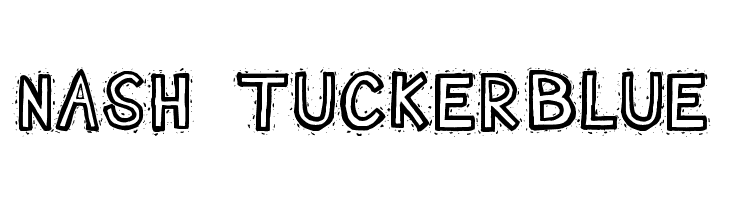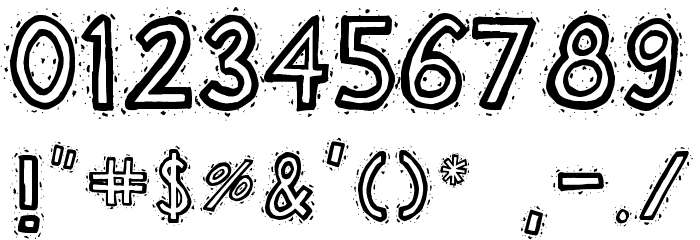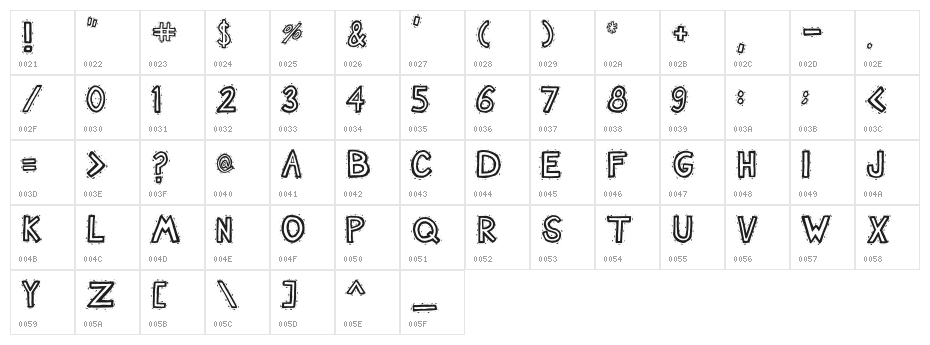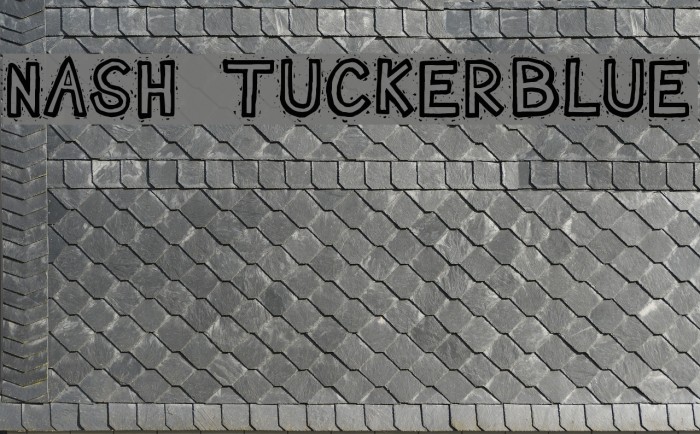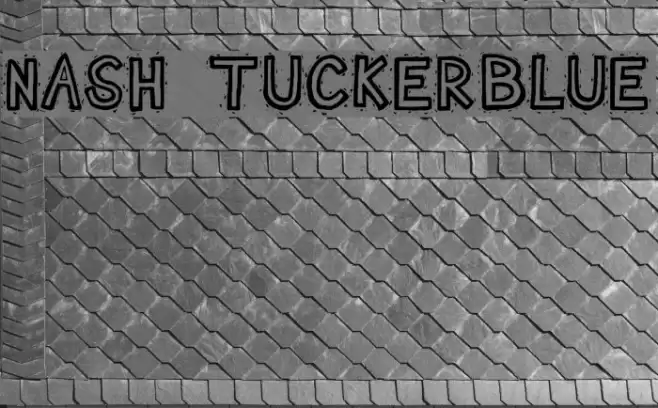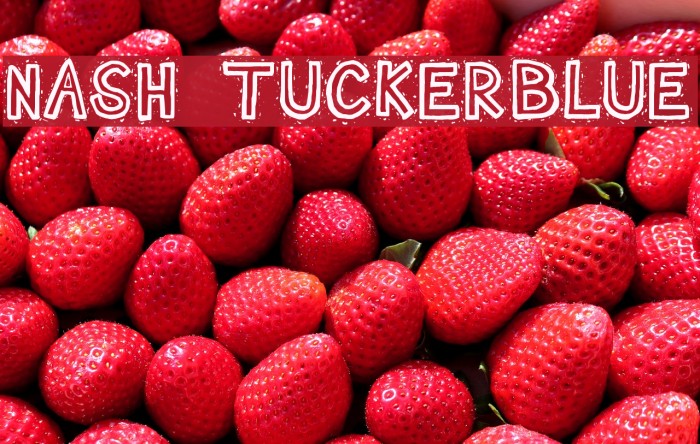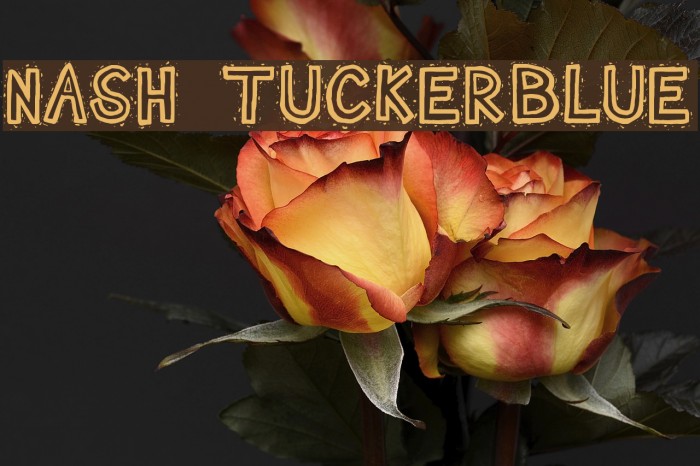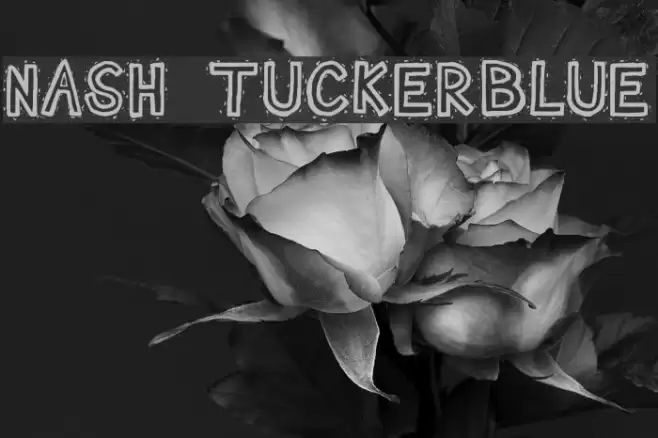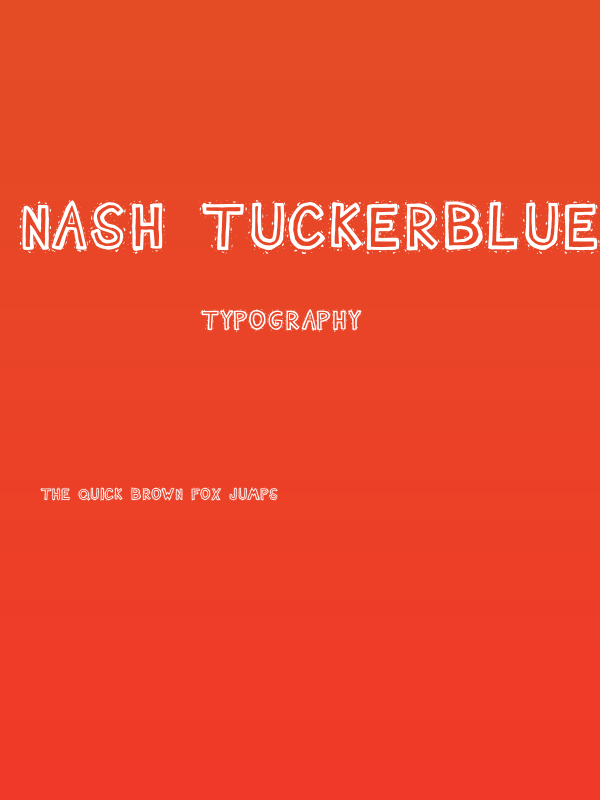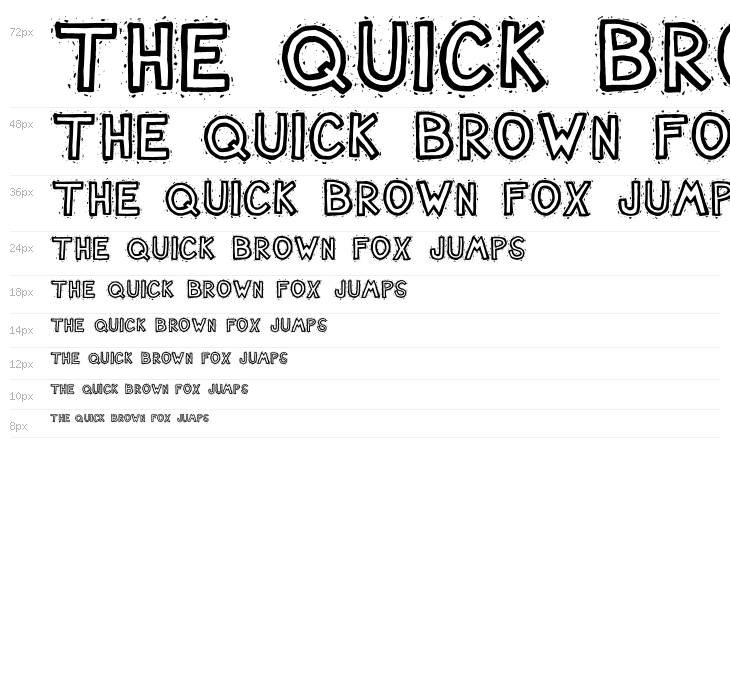
Nash TuckerBlue Font
Nash TuckerBlue Description
This font features a playful and bold design with a hand-drawn aesthetic. Each character is outlined with a thick black line, giving it a cartoonish and lively appearance. The letters are slightly irregular, adding to the whimsical feel. The uppercase and lowercase letters maintain a consistent style, with rounded edges and a uniform stroke width. Numbers and special characters follow the same design principles, ensuring a cohesive look across all elements. The font's unique style makes it stand out, ideal for projects that require a fun and engaging visual impact.
| Proposed Projects | Ideal for children's books, comic strips, playful branding, and creative posters. |